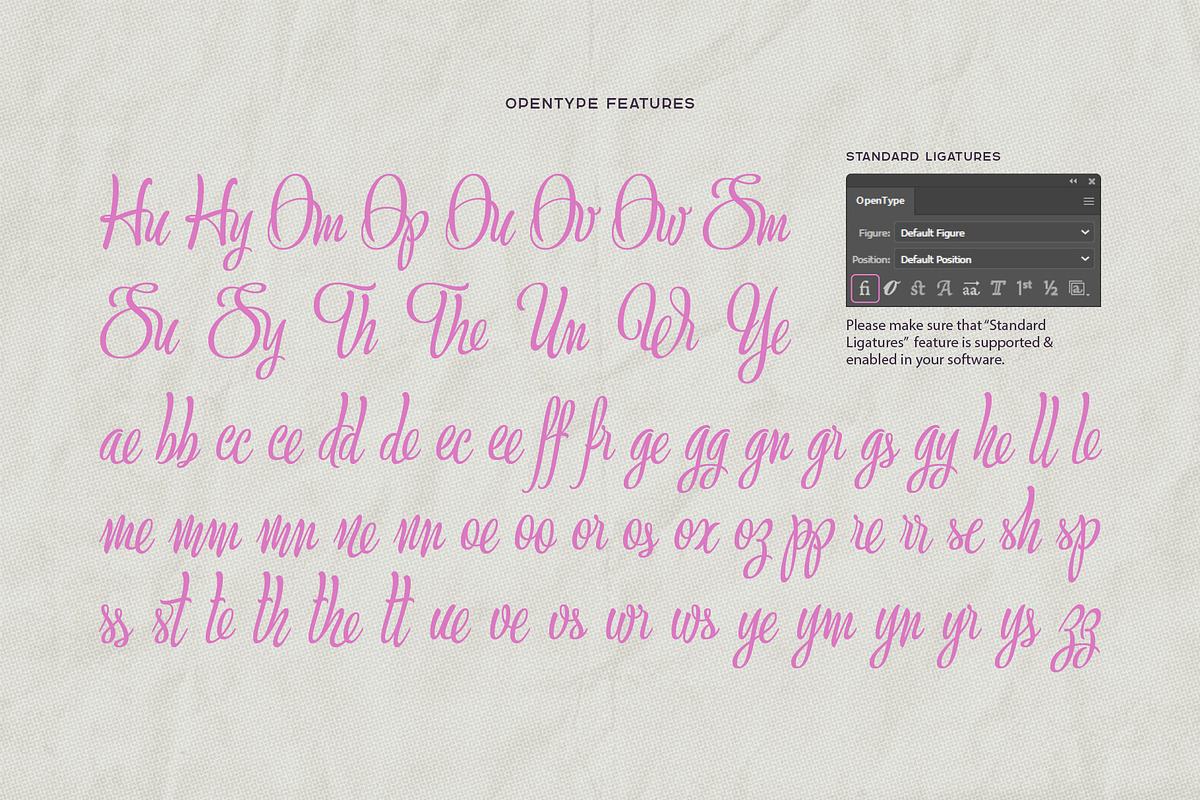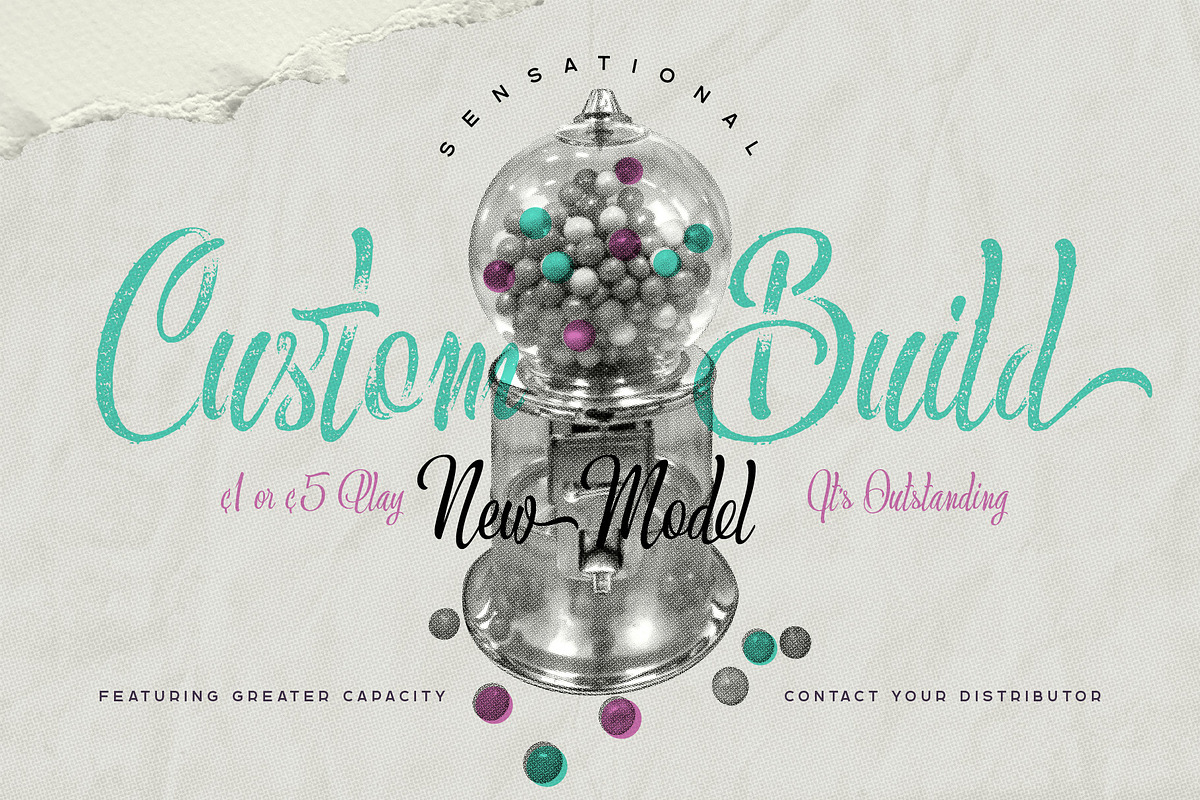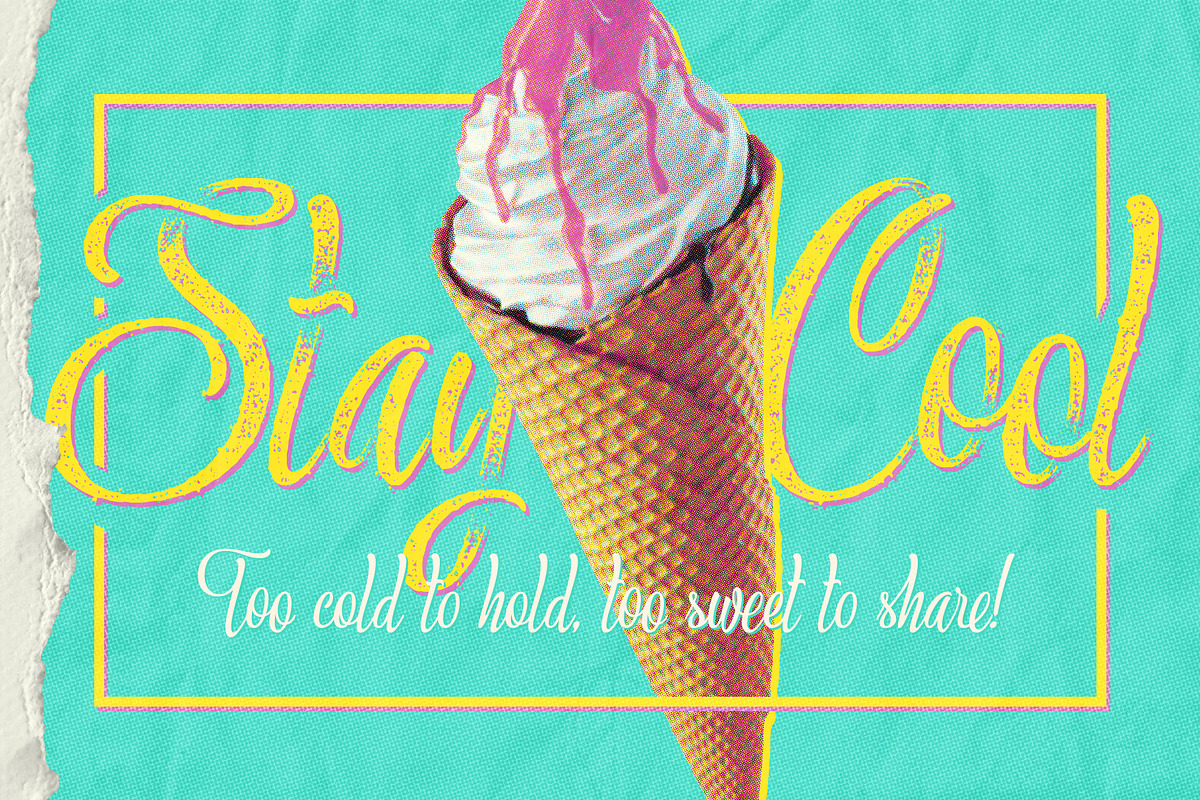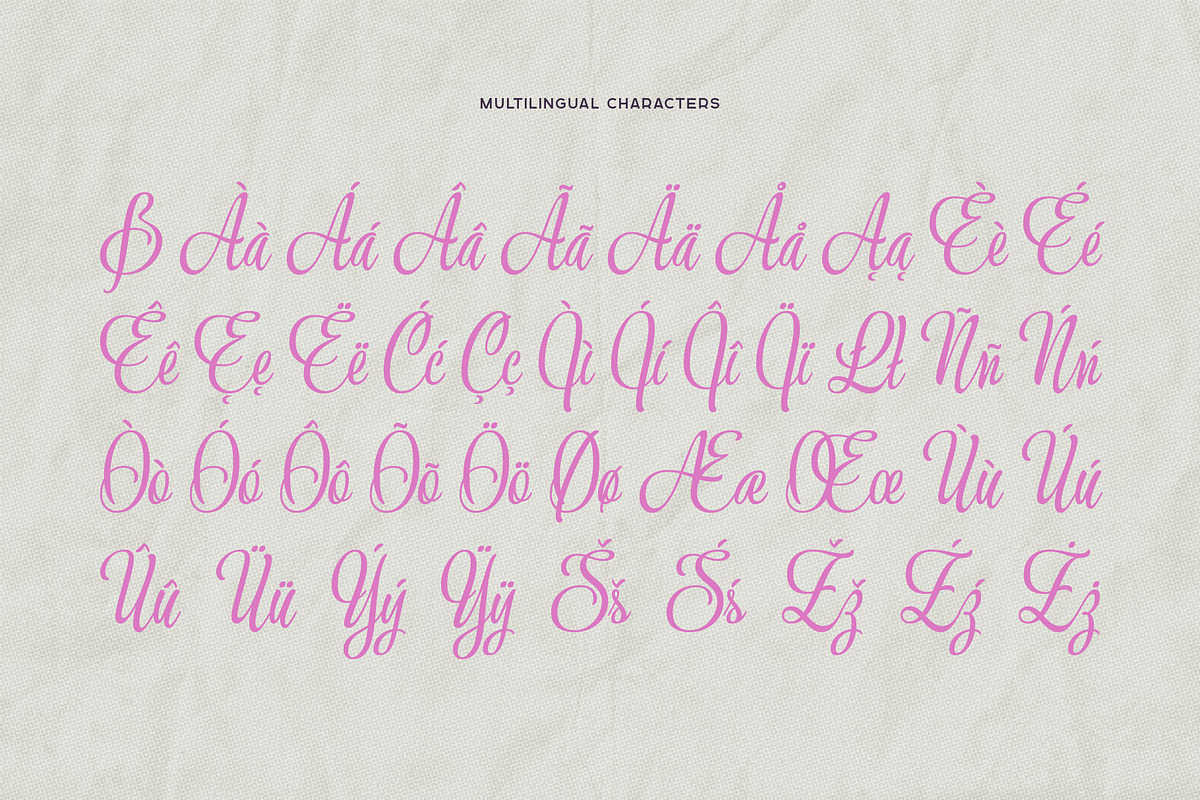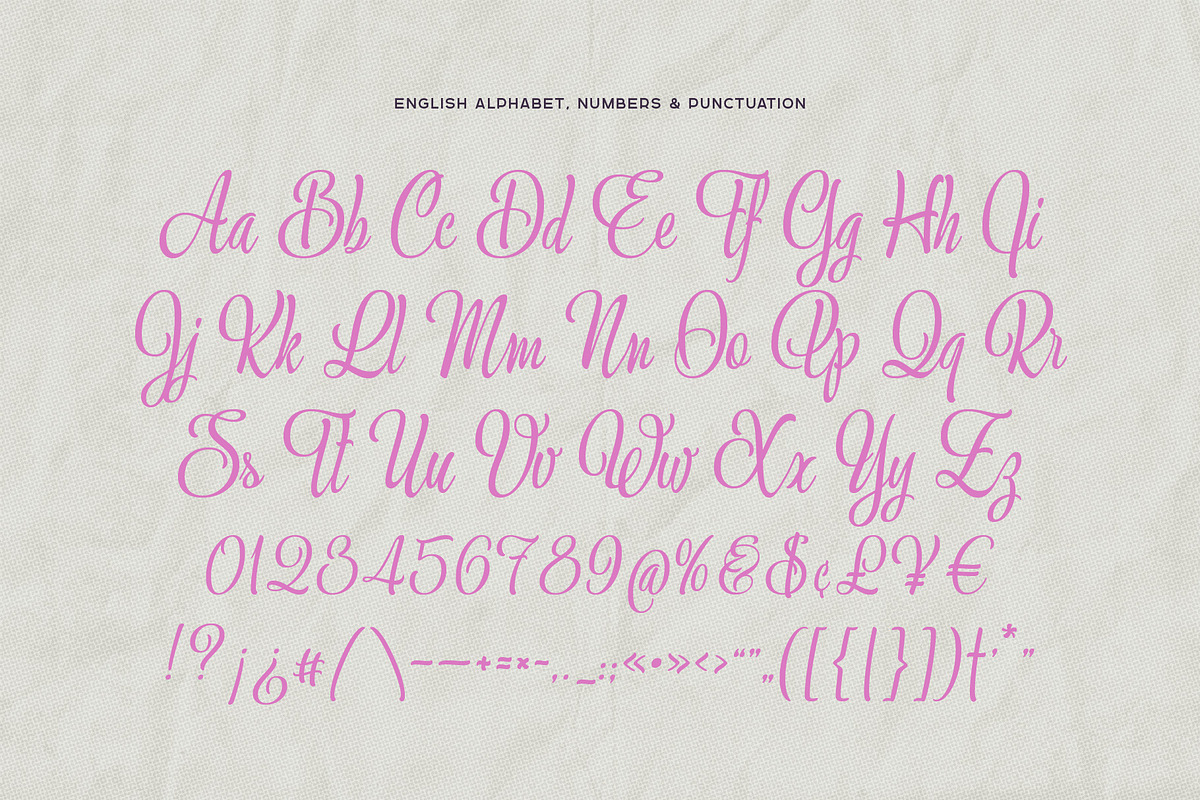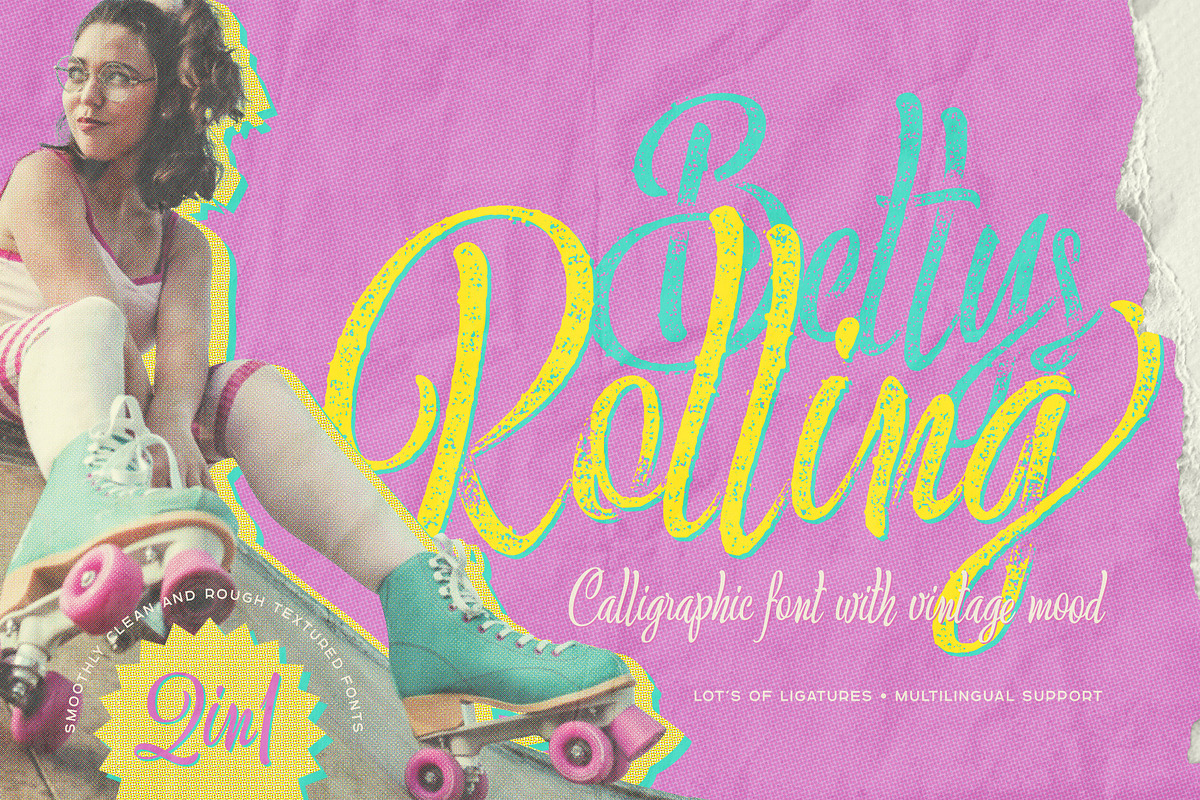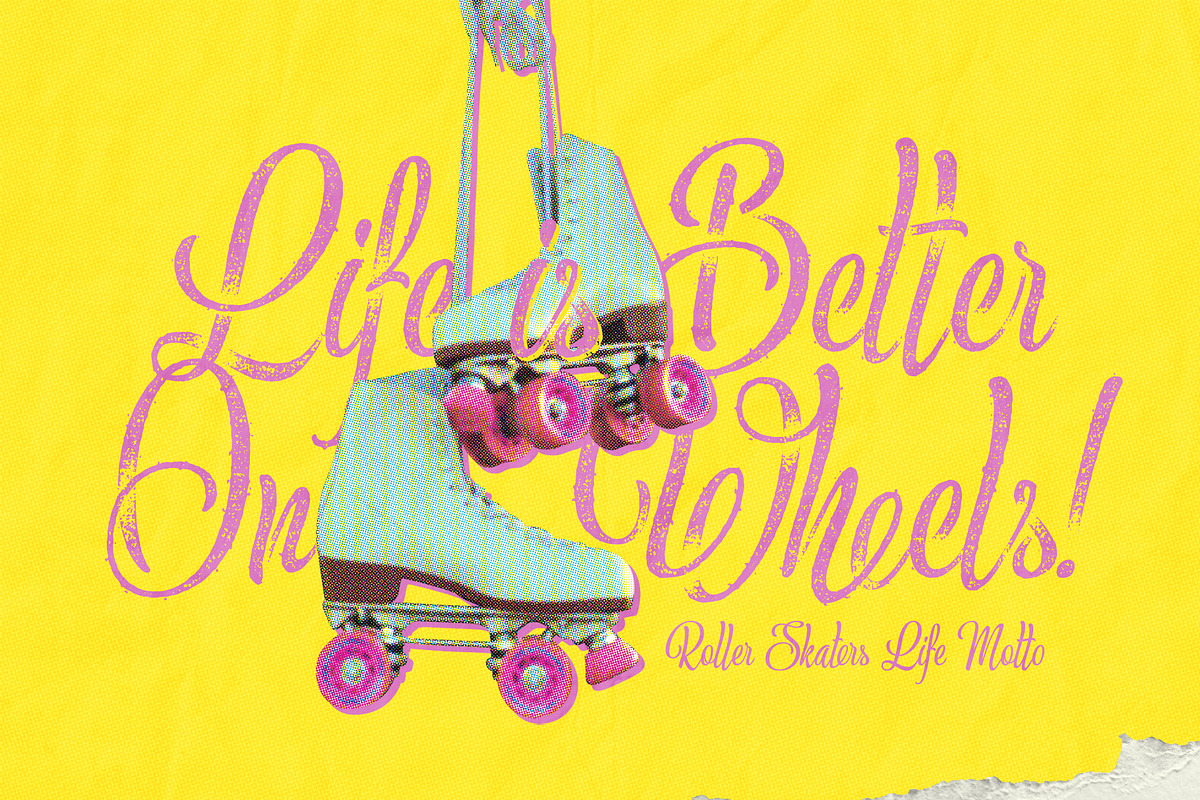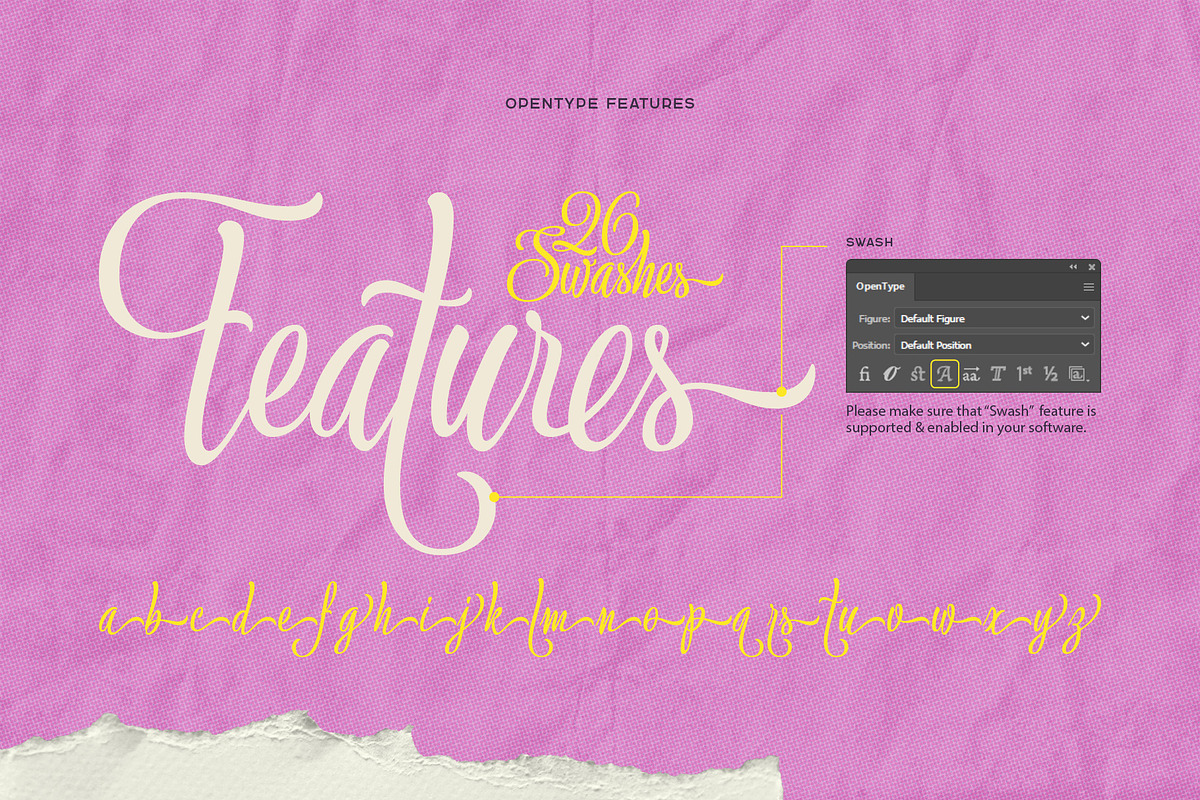
Bettys Rolling Script
Introducing Bettys Rolling script font set. This calligraphic textured script font captures the vibrant, free-spirited energy of 1980s roller skating culture. Its fluid, dynamic strokes mimic the graceful movements of skaters gliding across neon-lit rinks. The textured details add a retro, hand-painted feel, reminiscent of vintage signage and old printed ads aesthetics.
Natural curves bring a sense of motion and excitement, evoking the carefree joy of roller discos. Perfect for retro branding, posters, and apparel, this font blends nostalgia with a modern edge. It’s a celebration of rhythm, movement, and the unmistakable charm of the 80s skate scene.
Bettys Rolling full set consists of two fonts, one of which is textured rough version and another has a smooth clean shape.
Lots of ligatures and other extra characters will help you to create an original lettering compositions (please make sure that OpenType features are supported & enabled in your software). Bettys Rolling font has multilingual support (check out a screenshot with available characters).